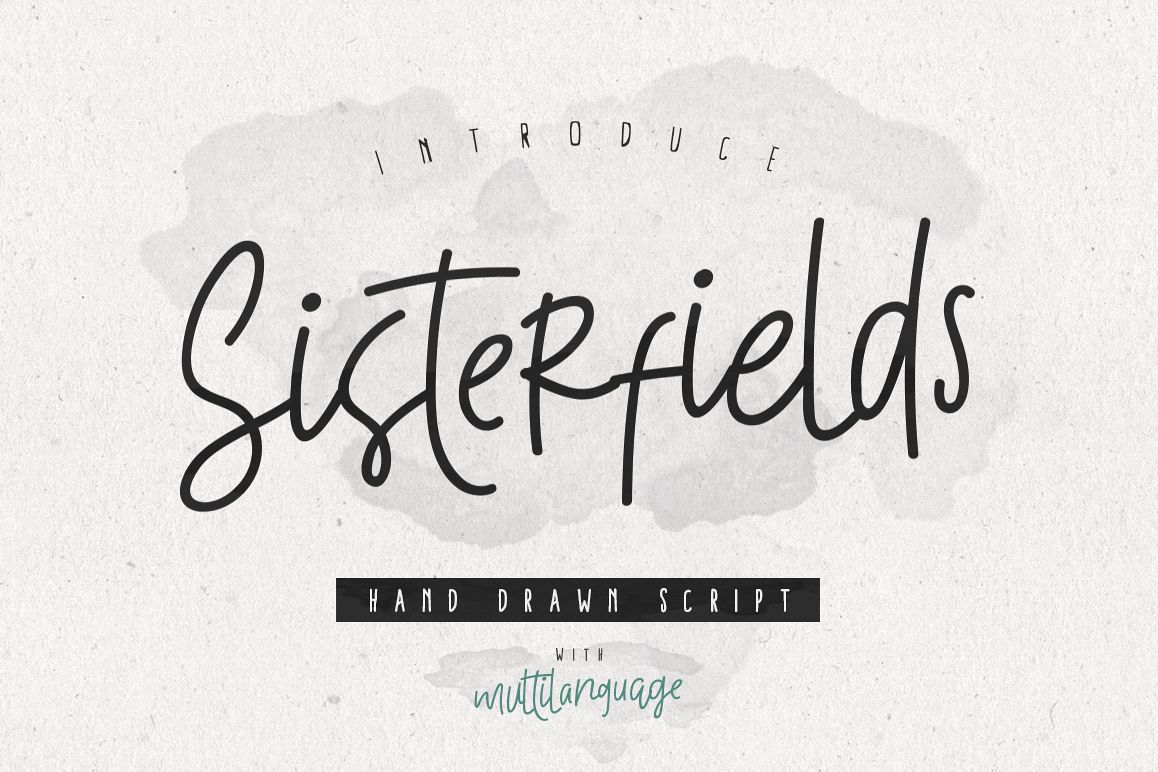
Sisterfields Script
Sisterfields-Regular
a SISTERFIELDS  is unique font and also has beautiful script font. Can make it easier to convey the message in your design. Use for awesome display, labeling, clothing, movie sceen, poster, movie title, gigs, album covers, logos, and much more.
Sisterfields Script
- Uppercases & Lowercases
- Stylistic alternates
- Numerals & Punctuations
- Multilanguage